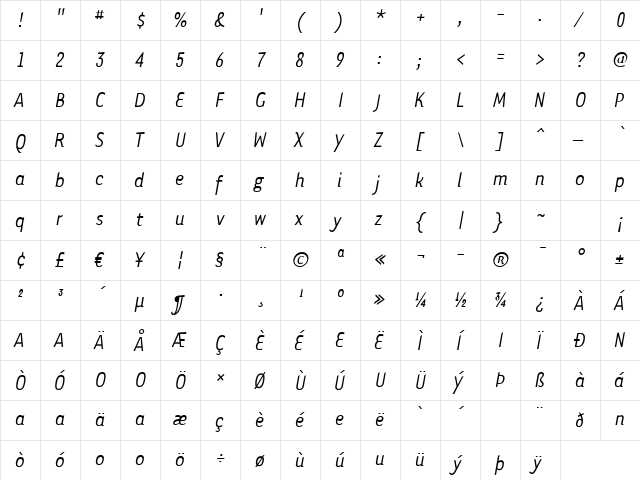
Tarzana Narrow Italic Regular Font Preview
Design Context for Tarzana Narrow Italic Typeface
Tarzana Narrow Italic takes a measured approach to typography — its balanced proportions and neutral character make it a reliable workhorse for both digital and print work. The dynamic lean of this cut emphasises speed and emphasis in any layout. Its narrow stance lets it pack a punch even in space-constrained designs.